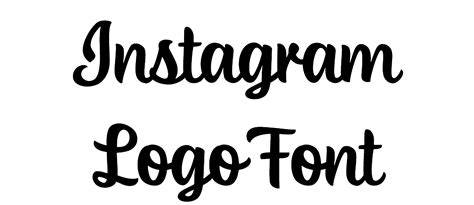
Instagram Fonts: How To Get The Best Visual Impact
In 2023, Instagram fonts are becoming increasingly popular as users strive to create the most visually appealing posts. It is no surprise that there is a wide variety of fonts to choose from, each one adding a unique touch to your posts. However, it can be difficult to know which font to choose and how to ensure that it is a good fit for your profile. Here, we will provide tips on how to choose the right font for your Instagram posts and how to get the most visually impactful results.
Steps to Follow to Choose the Right Instagram Fonts
Choosing the right Instagram fonts can take some practice and experimentation, but it is possible to ensure that you choose the best font for your profile. The first step is to determine which font works best with your overall profile aesthetic. If you are creating a profile that has a modern feel, then a sans-serif font would be a great choice. Conversely, if you are striving for a more vintage feel, then a serif font would be a better choice. Once you have narrowed down your font category, it is time to experiment with the various fonts within that category. It is important to take some time to test out different fonts and see how each one looks on your profile. This will help you to determine which font will have the most visually impactful effect on your profile.
Tips to Enhance the Visual Impact of Your Instagram Fonts
Once you have chosen the right font, there are some additional tips that can help you to enhance the visual impact of your Instagram fonts. One important tip is to choose a font size that is appropriate for your profile. If the font is too small, it will be difficult to read and not have the desired effect. It is important to also consider the spacing between the letters and the line height. The spacing should be appropriate and consistent throughout the font, while the line height should also be appropriate and not too large or small. Additionally, it is important to consider the color of the font. The color should be appropriate for your profile and should be used to create contrast and draw attention to the text.
Best Practices to Keep in Mind with Instagram Fonts
When using Instagram fonts, it is important to keep certain best practices in mind. One of the most important is to always double-check the spelling and grammar of your text before posting. It is also important to make sure that the font is legible and easy to read. Additionally, it is important to make sure that the font is consistent throughout your profile and that it does not clash with other elements of your profile. Finally, it is important to remember that the font should be used to enhance your profile, not take away from it.
Instagram fonts can be a great way to add a unique touch to your profile and make it stand out from the crowd. However, it is important to take the time to choose the right font and use it in the most visually impactful way possible. By following the steps and tips outlined above, you can ensure that your Instagram fonts are visually appealing and help to draw attention to your profile.